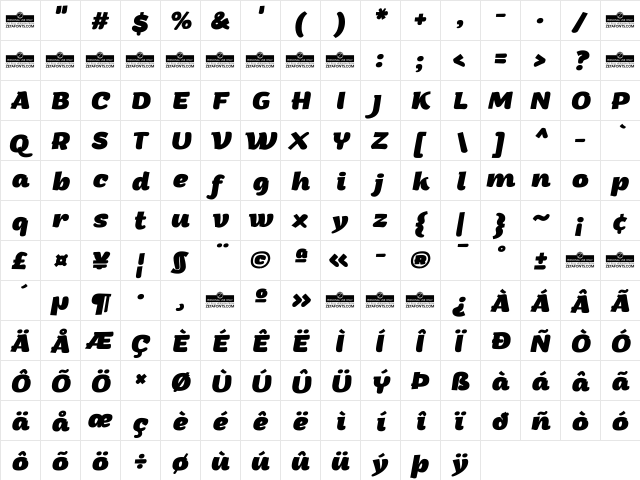
Arturo Trial ExtraBold Italic
Design Context for Arturo Trial Typeface
Arturo Trial is a composed and adaptable typeface that performs quietly and consistently across a wide range of design contexts. The dynamic lean of this cut emphasises speed and emphasis in any layout. The heavy weight commands attention and anchors typographic hierarchies.
Pro Tip: Try Arturo Trial for annotation and caption copy alongside an upright companion — the contrast in angle creates a dynamic but ordered typographic system.